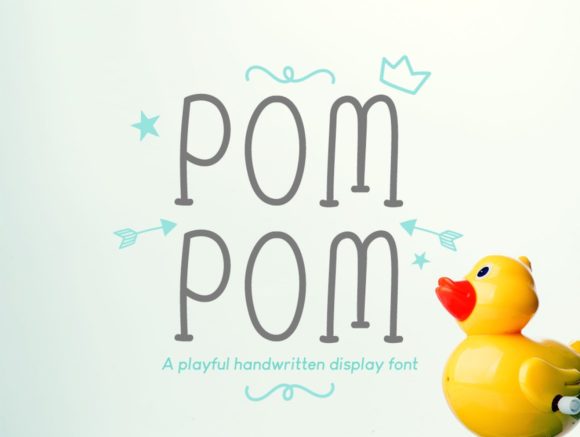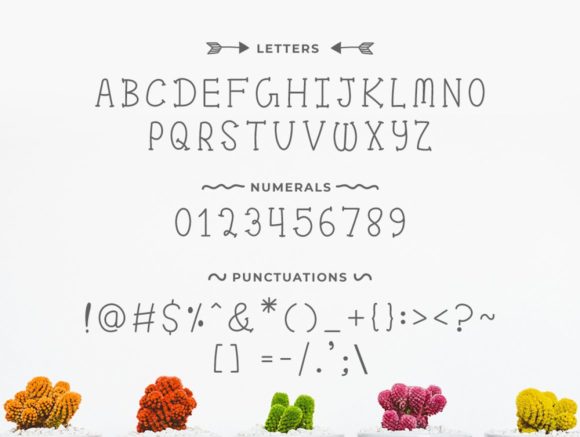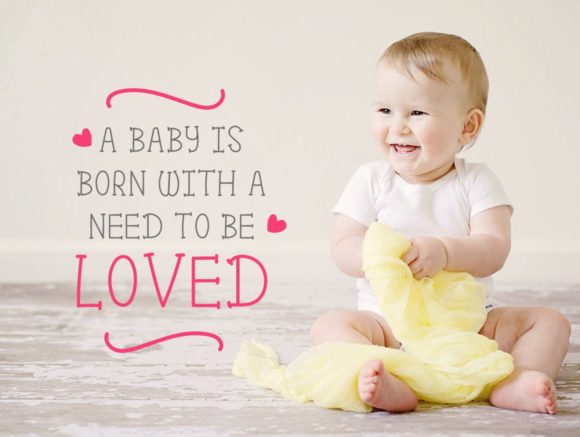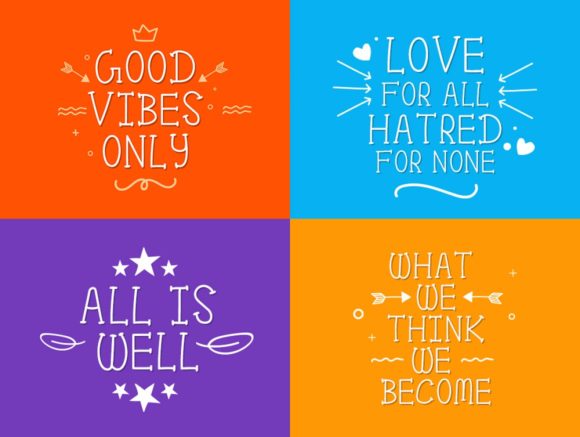
Pom Pom Font
About Pom Pom Font
Pom Pom is a cute handwritten font. It features an incredibly classic style, while still keeping a friendly feel. Pom Pom is the perfect font for making original and outstanding designs.